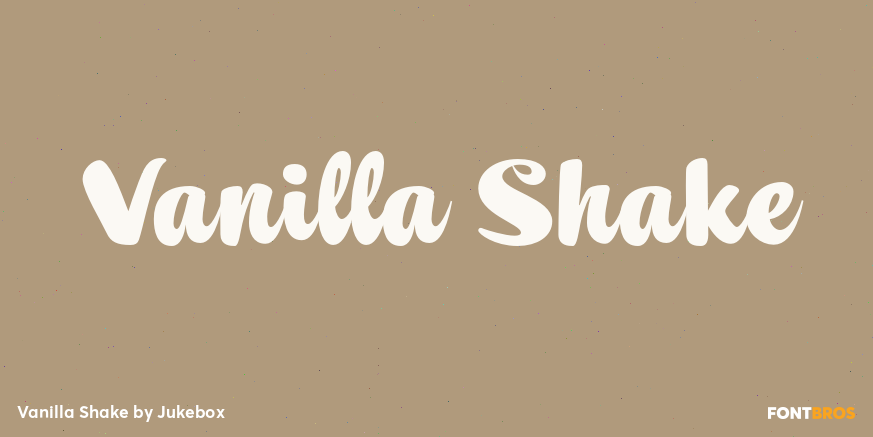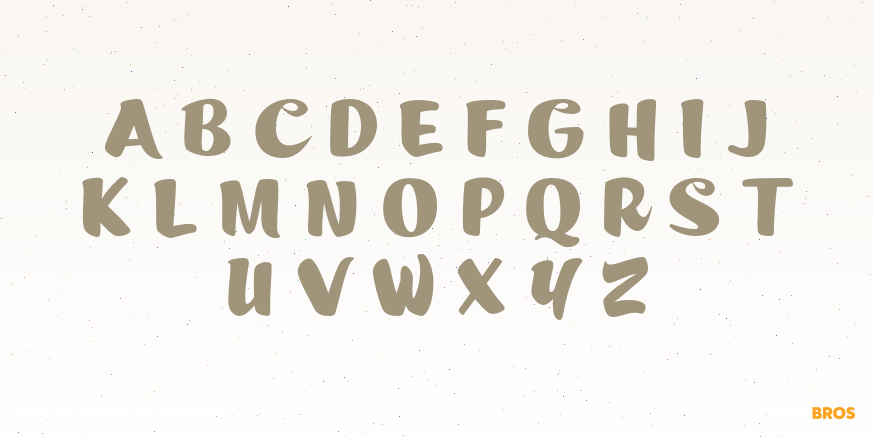
Vanilla Shake
Font Family by Jukebox
Vanilla Shake is the fifth font in the collection based on the lettering of late sign painter Mike Stevens. A heavy upright and casual script font, Vanilla Shake is sweet and smooth just like its namesake! Perfect for a variety of uses, the typeface gives a friendly welcoming appearance to any design it's used in. As with several of my other fonts based on sign lettering, Vanilla Shake contains a variety of alternates. There are at least two and in some cases three versions of each letter as well as a variety of ligatures to help give it a more hand drawn feeling. They can be accessed under the Stylistic Alternates and Titling OT features.